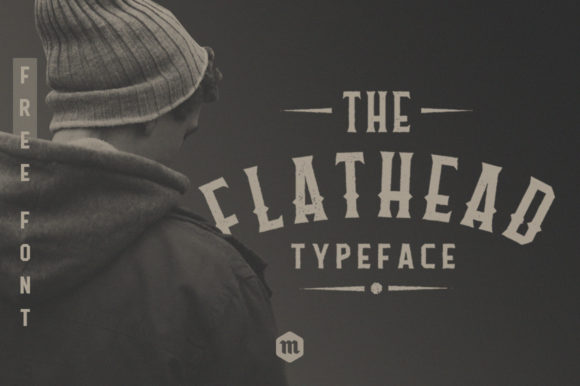
Introducing Flathead, the sans serif font that will ignite your designs with a touch of vintage charm. Inspired by the bygone era of retro typography, Flathead's meticulously crafted characters exude a timeless appeal that will elevate your projects to new heights of sophistication.
Step back in time and embrace the allure of Flathead's captivating curves and sharp angles. Its bold presence commands attention, making it the perfect choice for headlines, posters, and branding that demands to be noticed. The font's versatility extends to body copy as well, adding a touch of understated elegance to your written creations.
With Flathead, you'll unlock a world of possibilities for your retro-inspired endeavors. Its unique style will infuse your designs with a sense of nostalgia, evoking memories of classic films, vintage advertisements, and the golden age of typography.
Flathead's exceptional quality ensures that your designs will stand out from the crowd. Its crisp lines and precise curves translate seamlessly across all platforms, delivering a stunning visual impact that will captivate your audience.